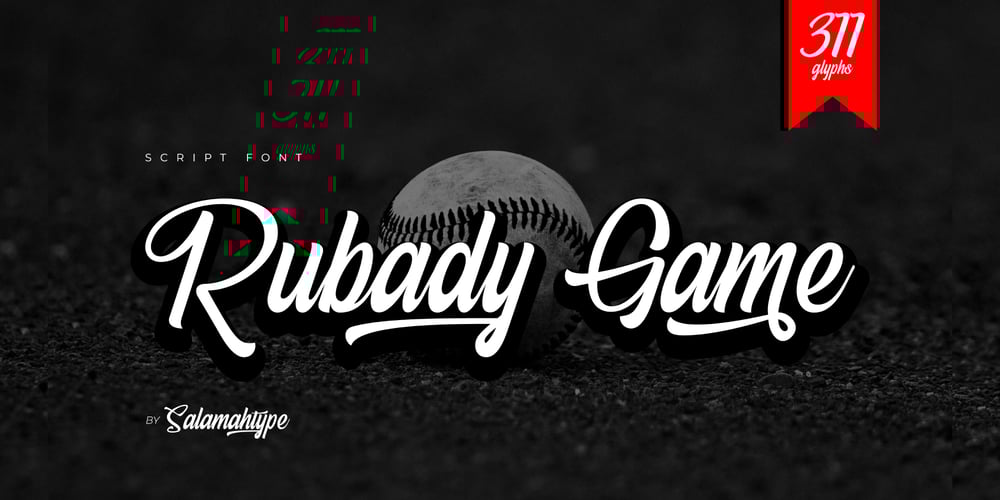
Rubady Game Font Family was designed by Aswangga Sadike and published by Salamahtype. Rubady Game contains 1 styles and family package options. Rubady Game is a script font with modern style. This font is perfect for logo, sports theme website/store, watermark, stationery, posters, flyers, social media posts, advertisements, product packaging, branding projects, product designs, label, photography, and so much more.What’s Included : Ligature and Alternate Simple installations – Works on PC & Mac PUA Encoded Characters – Fully accessible without additional design software Accessible in Adobe Illustrator, Adobe Photoshop, Adobe InDesign, even work on Microsoft Word. Standard and Multilingual Glyphs